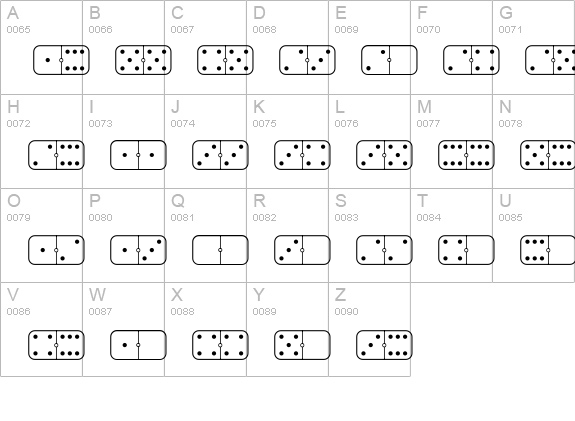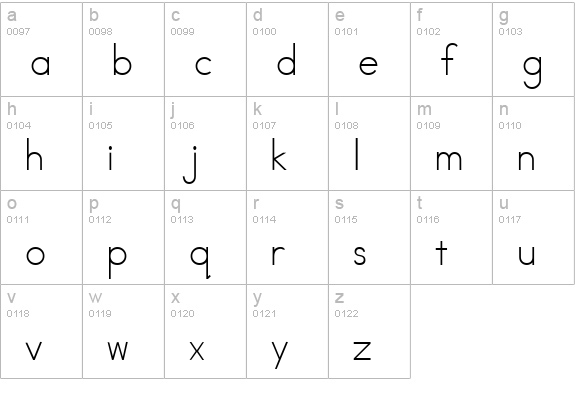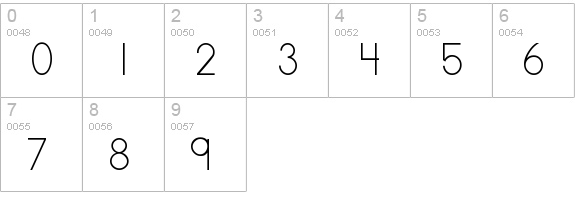
AbcDomino Font Details
Introducing the exquisite AbcDomino font, a modern and stylish typeface that exudes sophistication and charm. Designed with sleek lines and a contemporary aesthetic, AbcDomino is perfect for adding a touch of elegance to any project. Its unique design features a harmonious balance of classic and modern elements, making it versatile for a wide range of applications. What sets AbcDomino apart is not only its striking appearance but also its accessibility - this font is available for free download at FontsMarket.com. Whether you're working on a branding project, website design, or any other creative endeavor, AbcDomino will elevate your work with its timeless appeal. Embrace the beauty and versatility of AbcDomino font today and let your creativity shine.